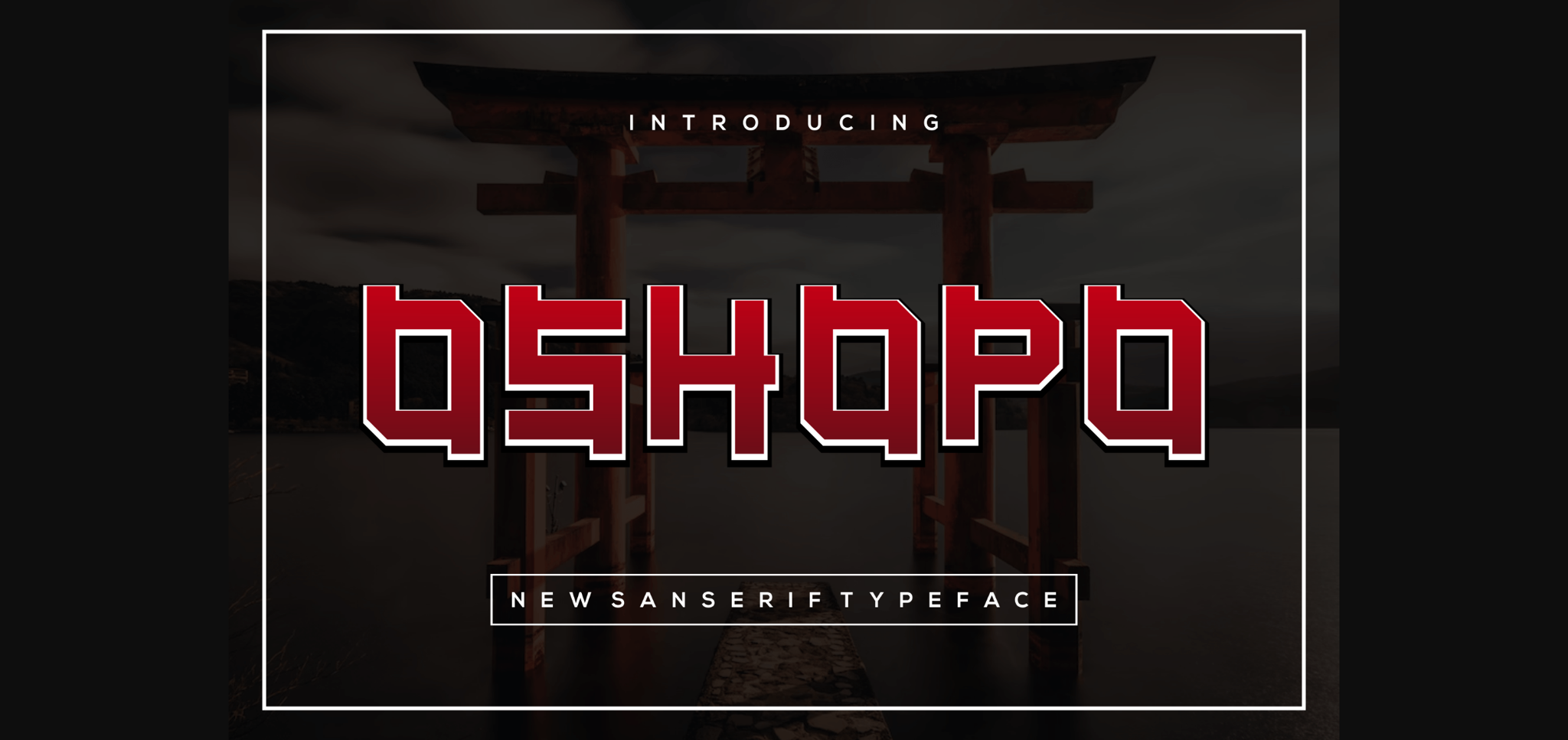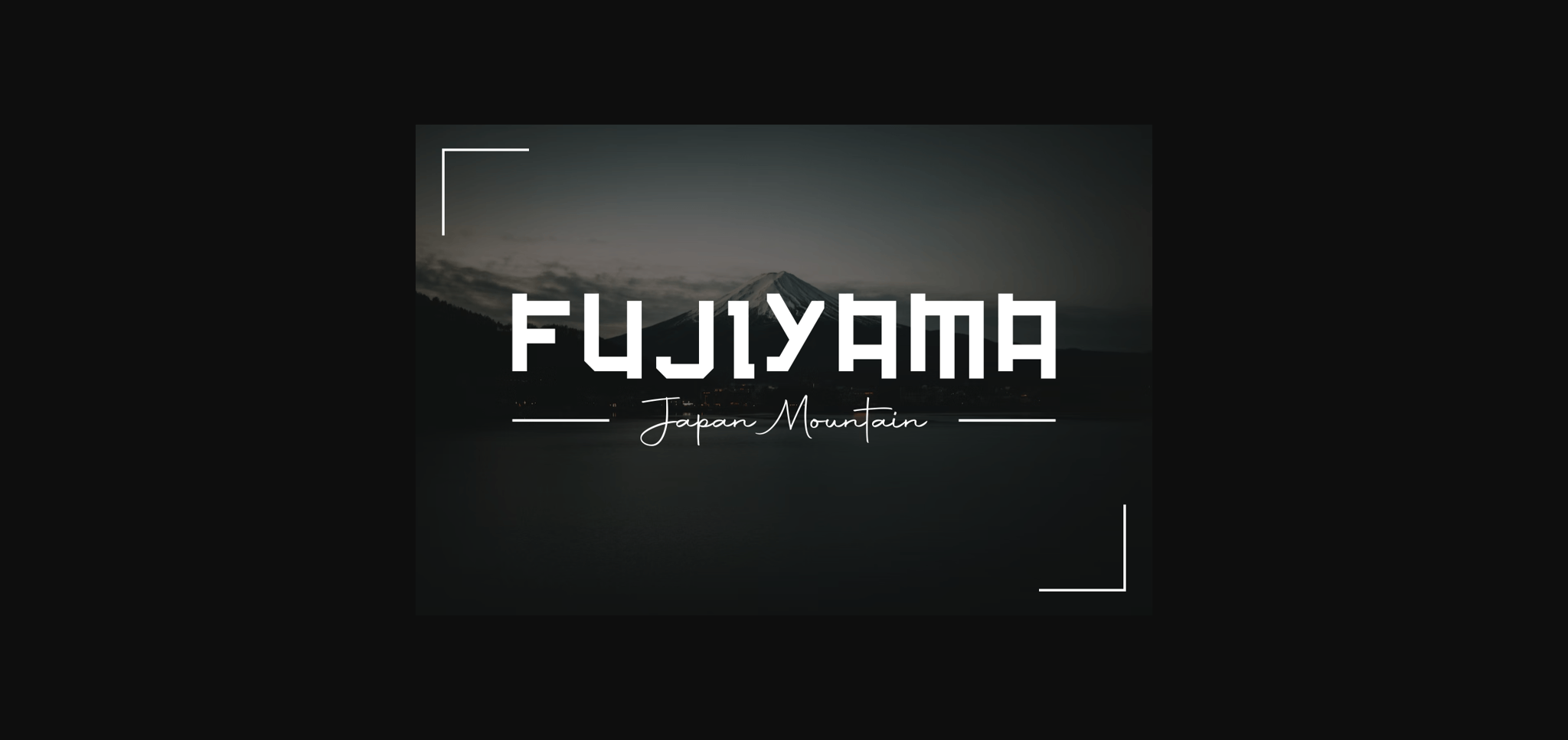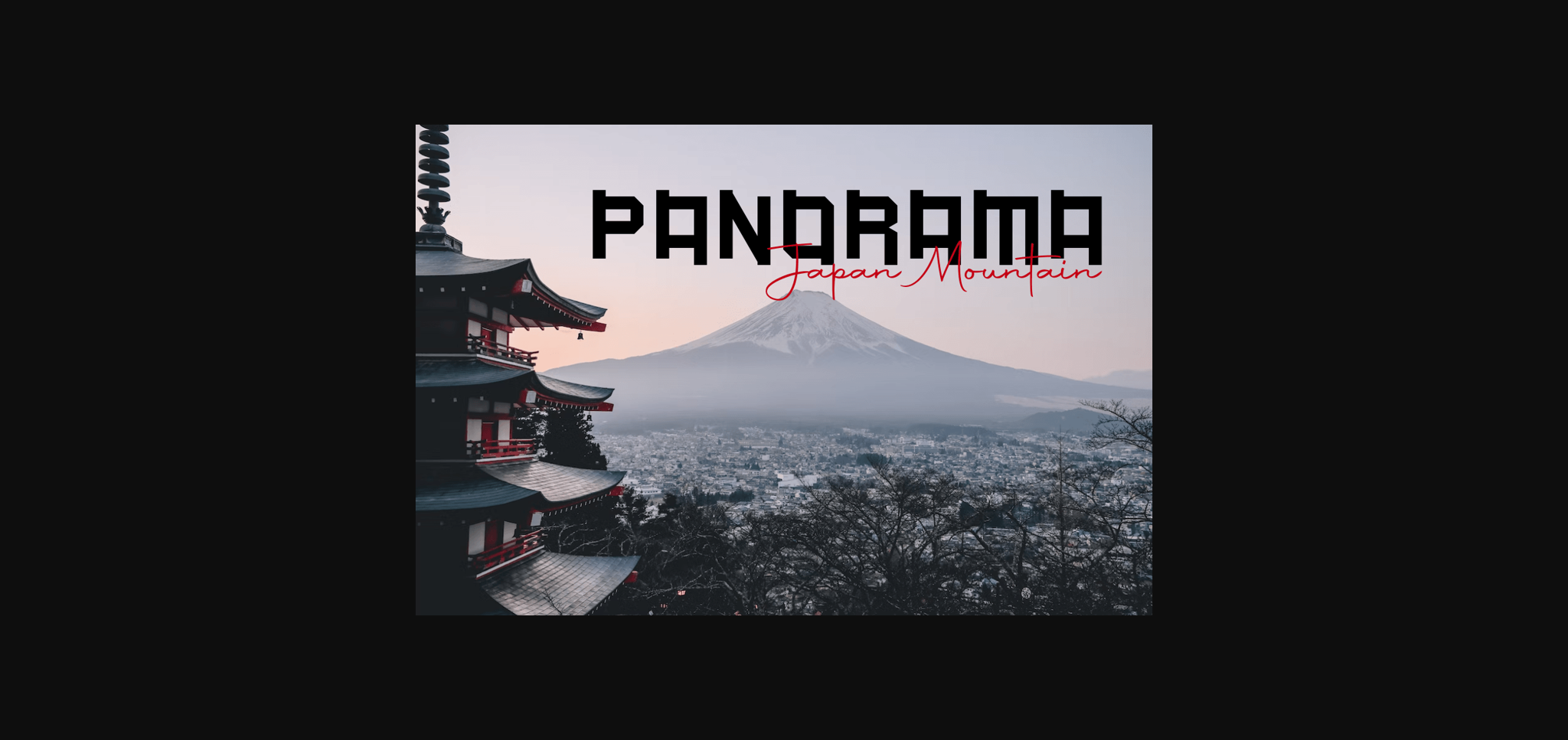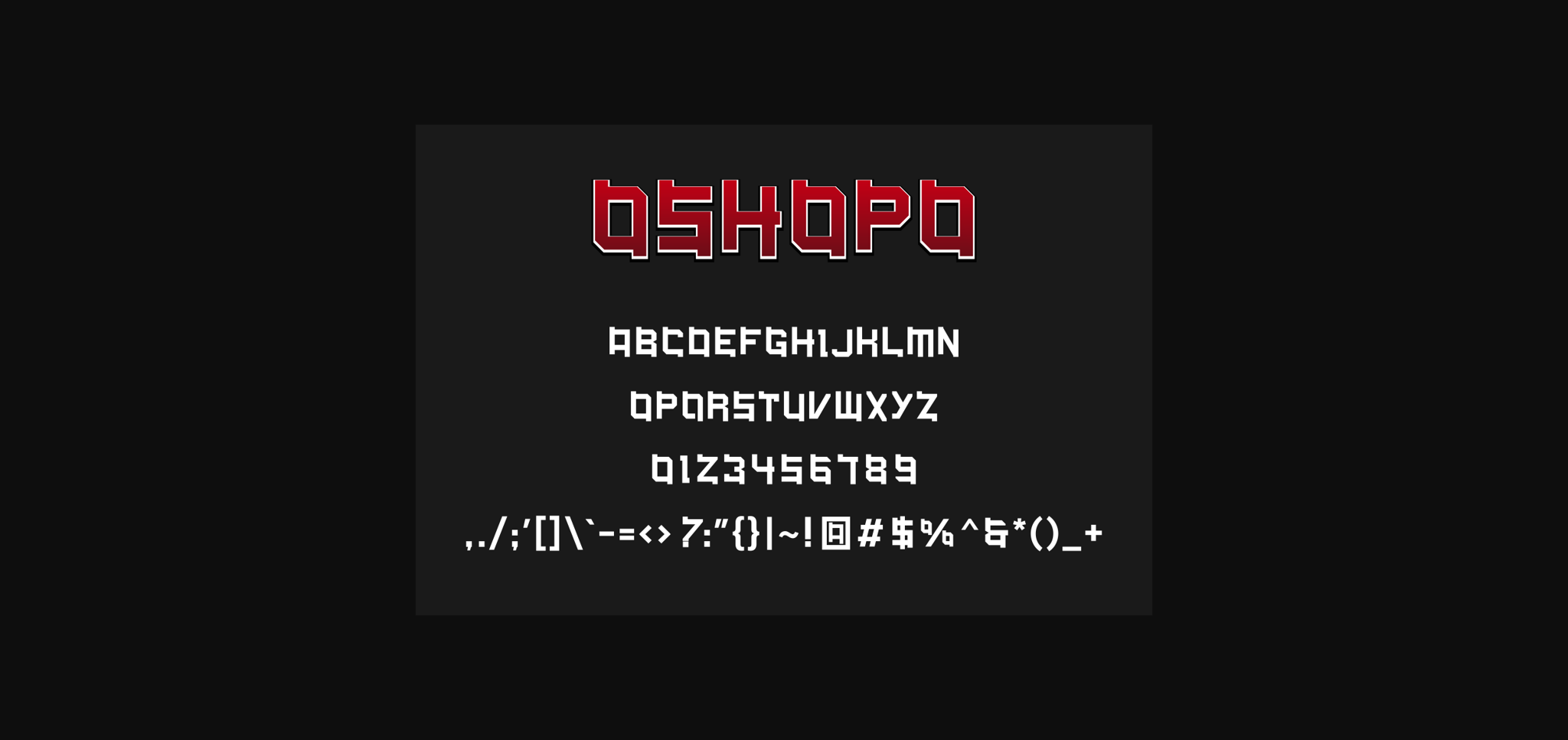
About Oshopo Font
**Oshopo Font** – Modern Font is a bold and authentic display font. The font is suitable for any branding project like logo, t-shirt printing, esports, and many more. Outstanding in a wide range of contexts.